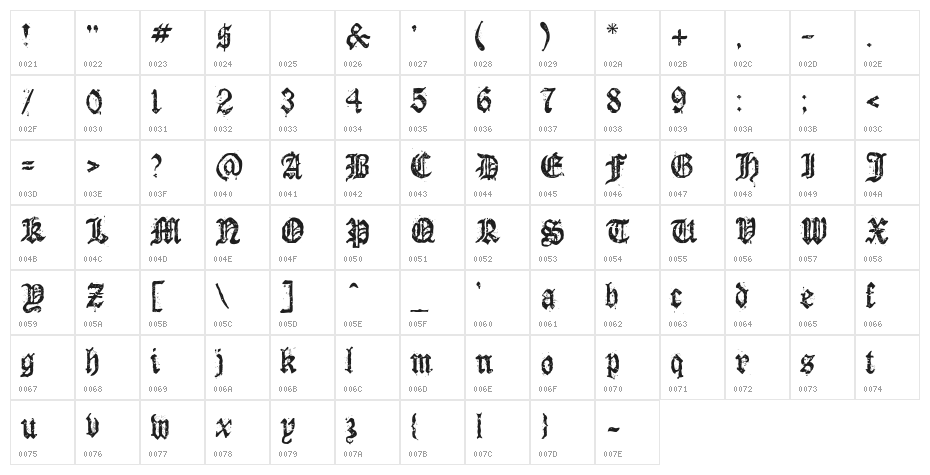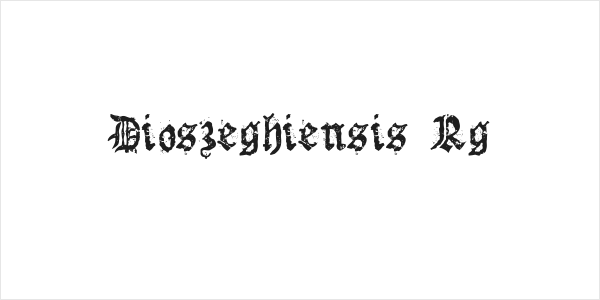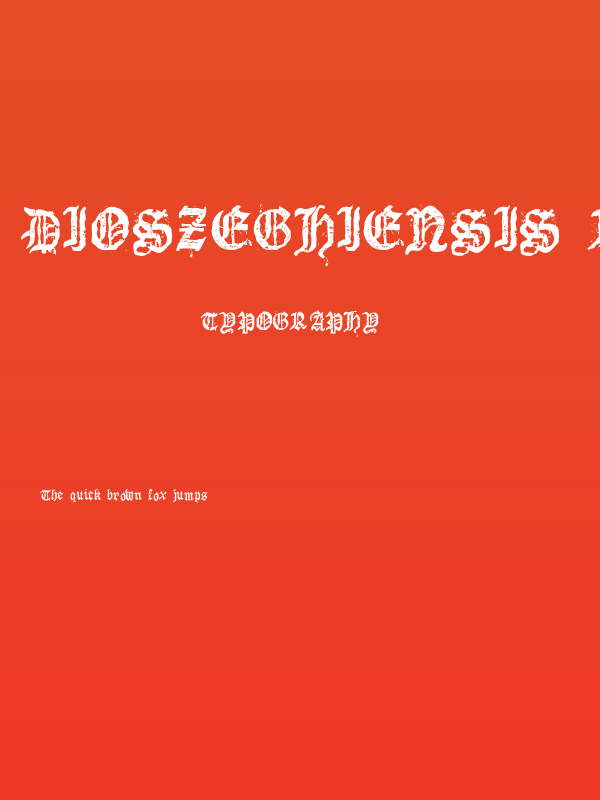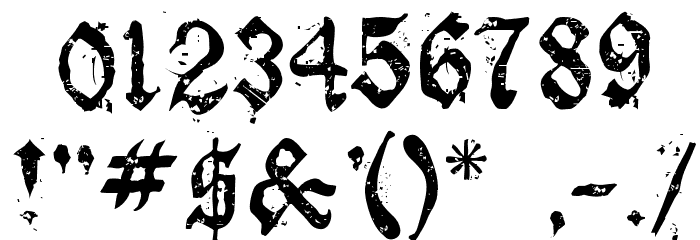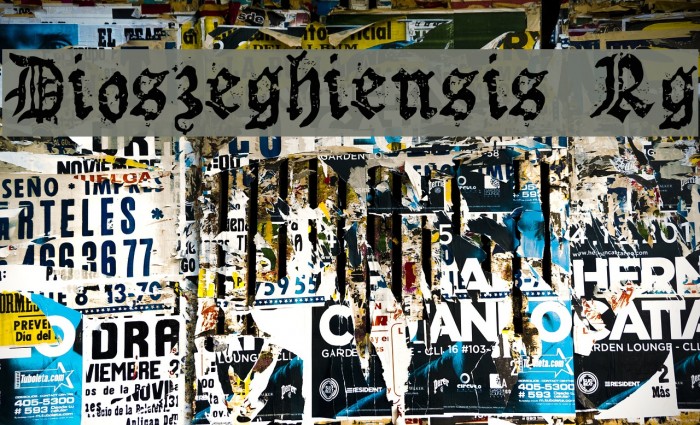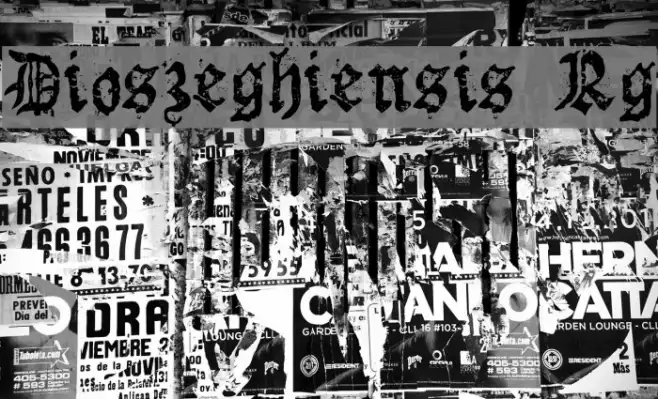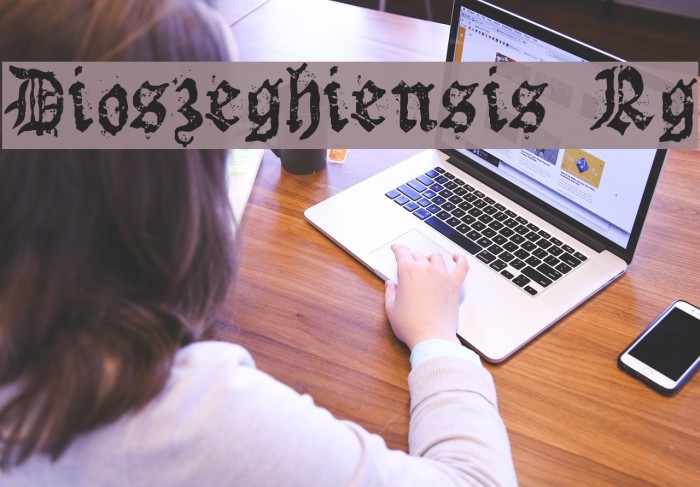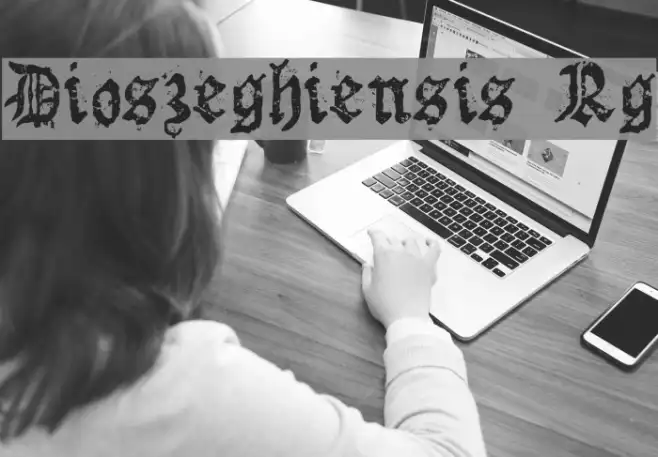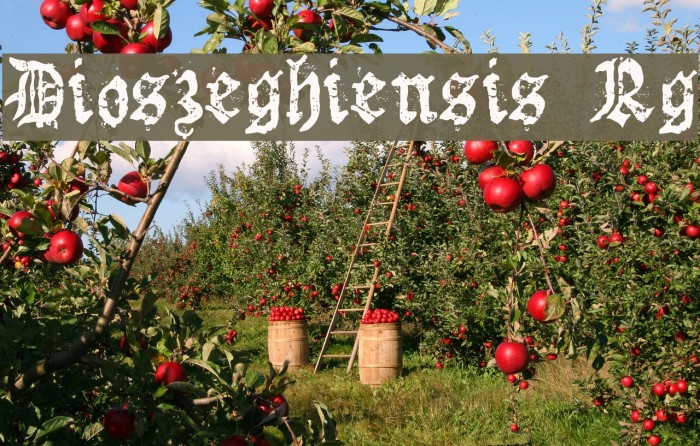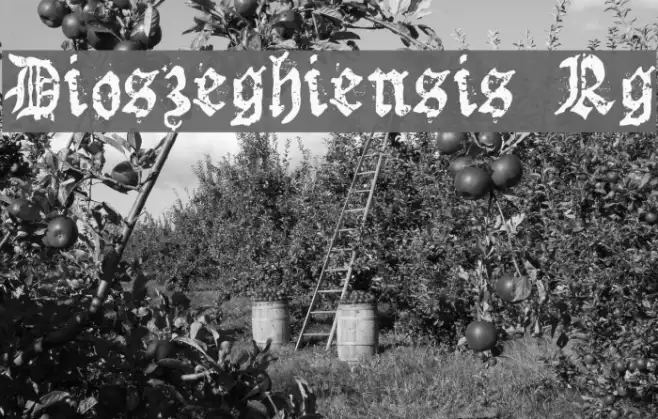
Dioszeghiensis Rg Font
Dioszeghiensis Rg Description
This font is a bold and intricate blackletter style, characterized by its elaborate and ornate letterforms. The strokes are thick and heavy, with a distressed texture that gives it a vintage, worn appearance. The uppercase and lowercase letters maintain a consistent style, featuring sharp angles and decorative elements typical of traditional Gothic scripts. The numbers and special characters are equally detailed, ensuring a cohesive look across all glyphs. This font evokes a sense of history and tradition, making it suitable for projects that require a dramatic and impactful typeface.
| Proposed Projects | Ideal for vintage-themed designs, posters, album covers, and branding that requires a historical or dramatic flair. |